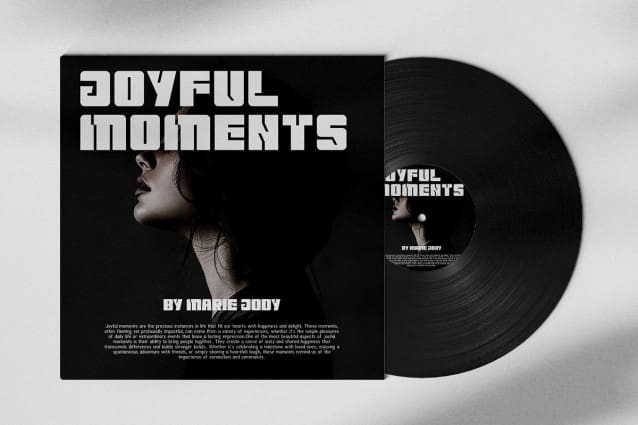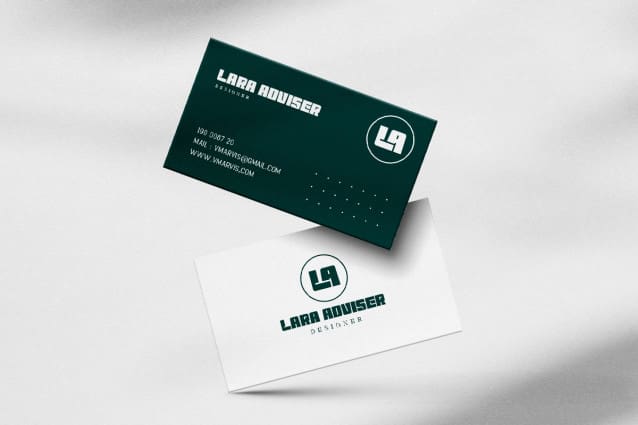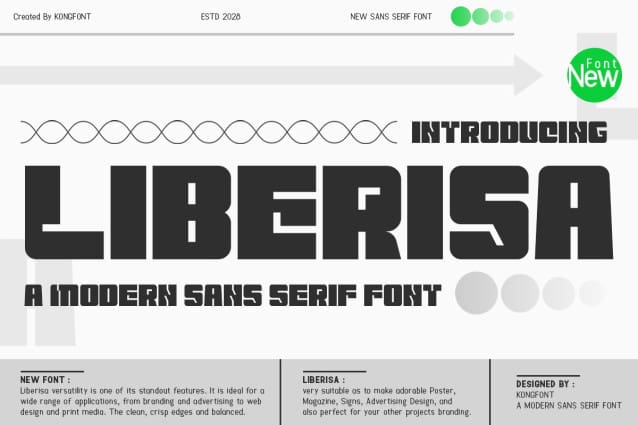
Liberisa Font
Liberisa Font – Modern CLasy Unique Sans Serif Font is created to present a simple and elegant impression to anyone who sees us. This is in line with the character of the letters which are very clean without unnecessary knick-knacks in each letter. Liberisa Font – Modern CLasy Unique Sans Serif Font stands tall and exudes a confident vibe. People who read various texts using this font do not need to bother to be able to read and understand it, in other words, this is a legible font.
As the name implies, Liberisa Font – Modern CLasy Unique Sans Serif Font is perfect for use in various formal events, such as weddings and multiple parties. This font is modern fonts and elegant fonts. It can be used for fashion branding, business cards, book covers, and magazine covers. This font can be printed in small or large sizes and still looks great up close or afar.
Not only that, this type of font can be used on the web. It can be used as a film font, in the intro and outro of the film. This font is also suitable for use as a children’s fairy tale title font that has a fantasy theme.
For those who are simple and don’t like the look of busy designs on their clothes, they will choose clothes with typography in them. Bold and clean, Liberisa Font – Modern CLasy Unique Sans Serif Font can look great when used correctly.